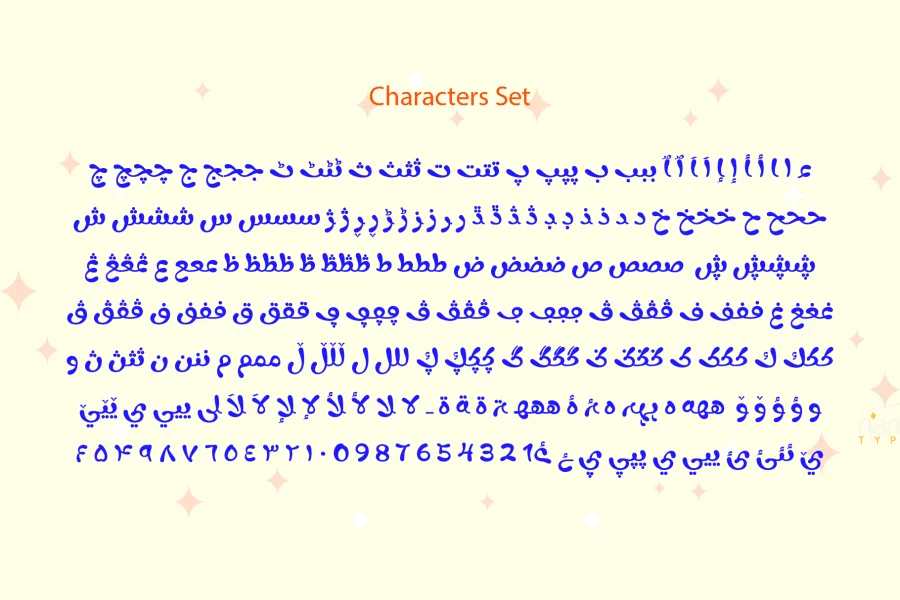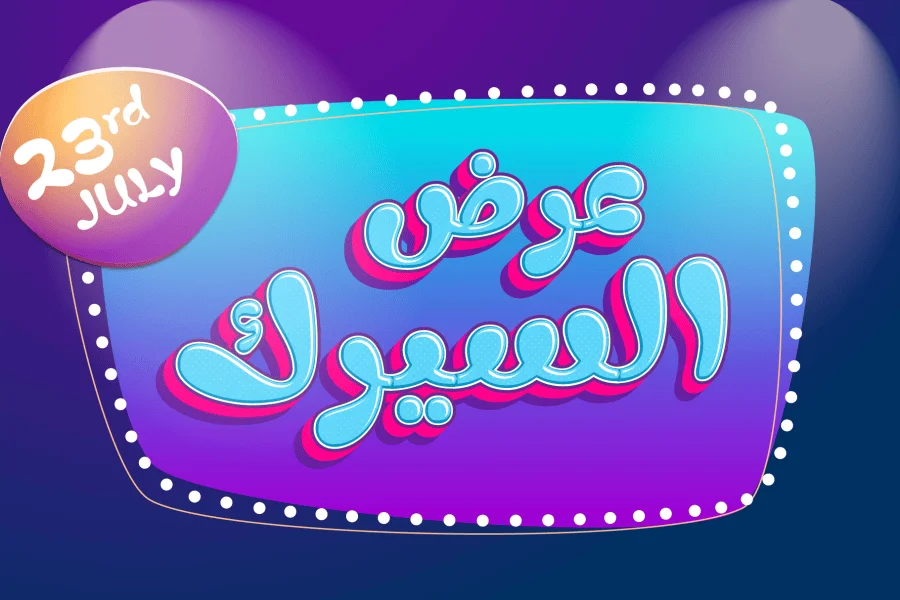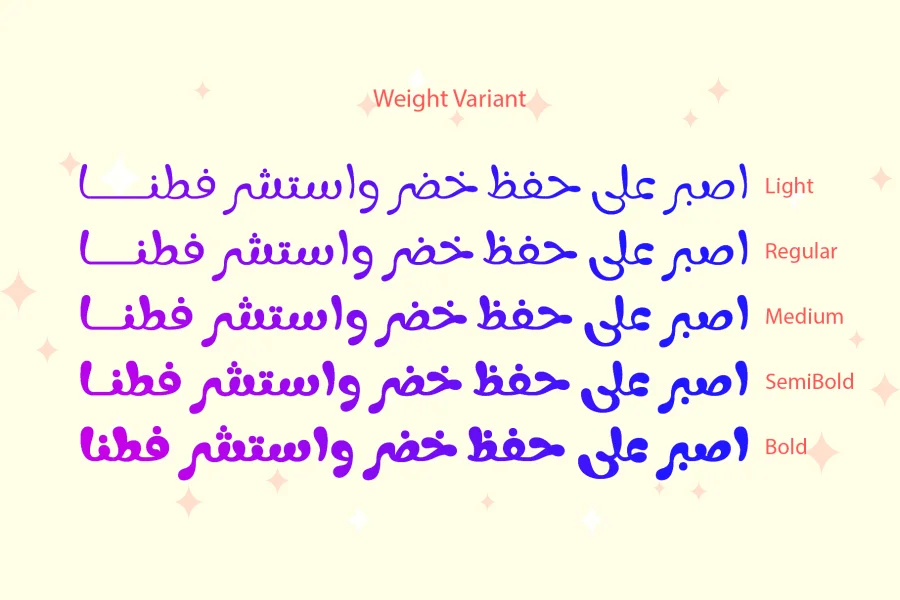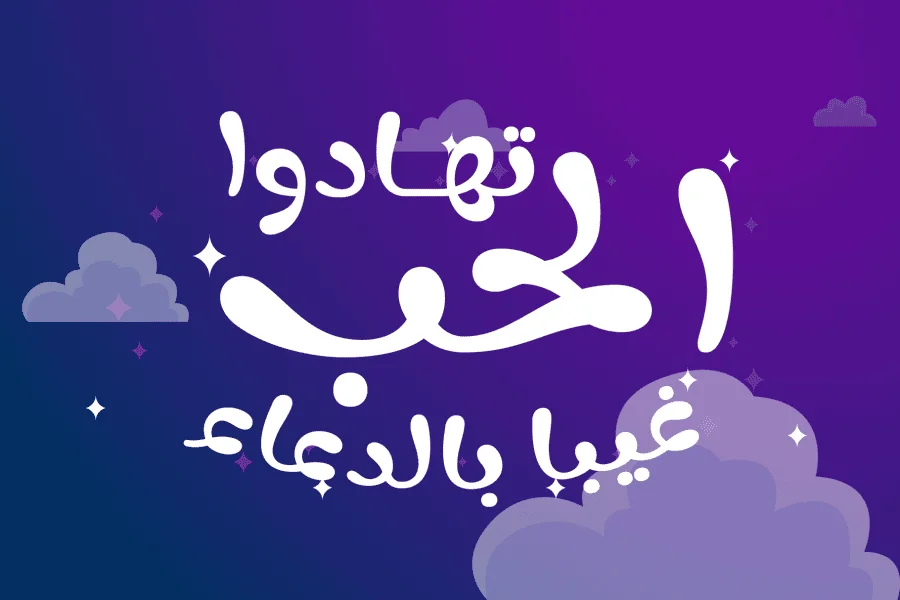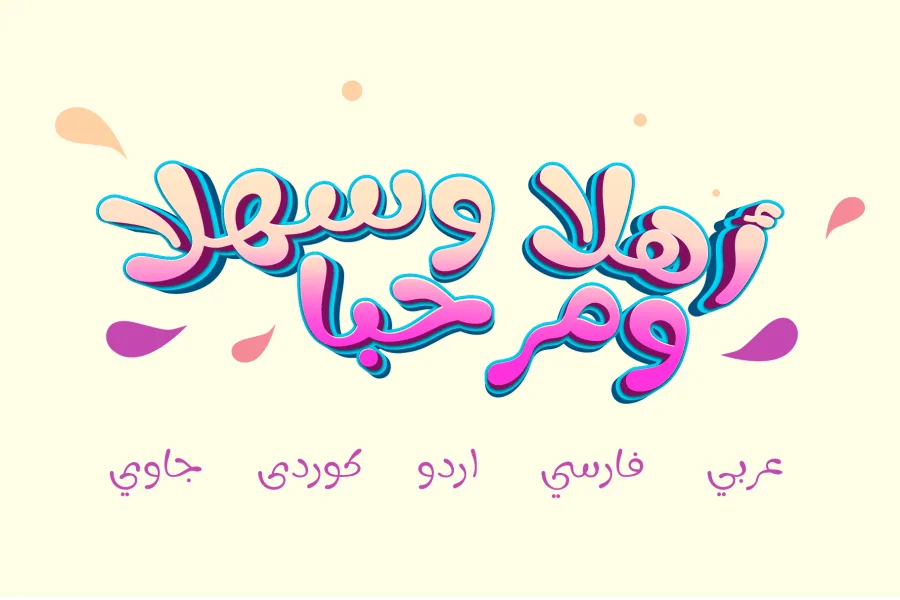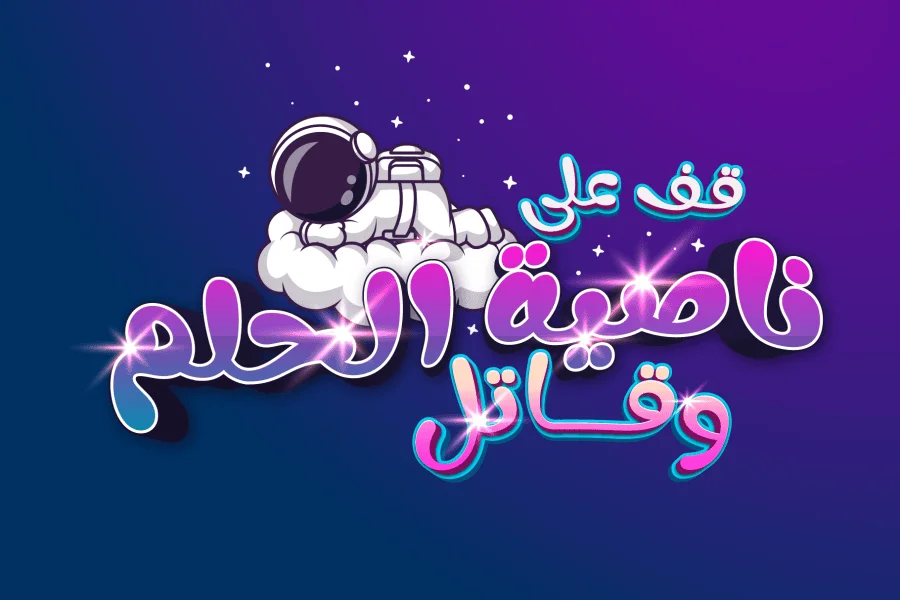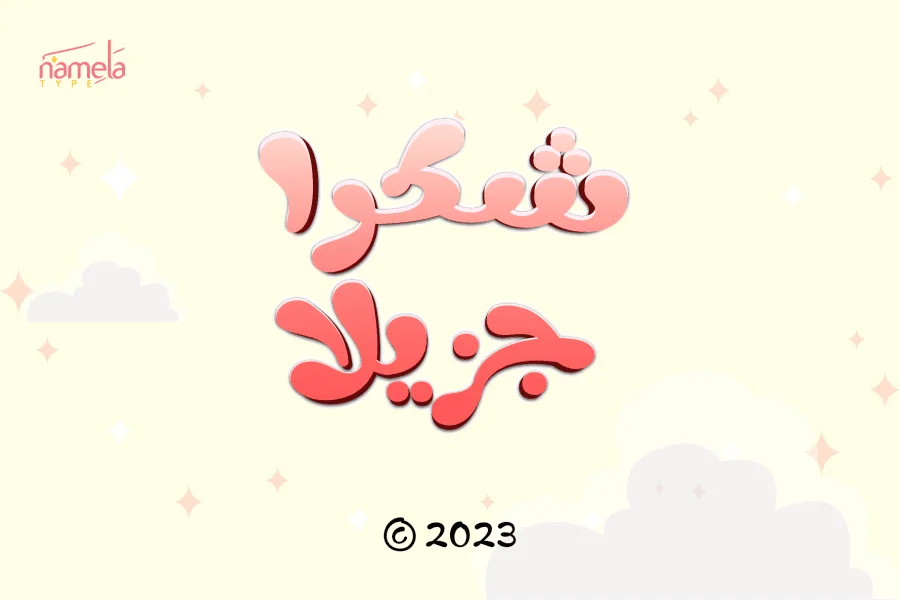
Fun Play Arabic font is a charming family of display typefaces, each character radiating happiness and good humor. This adaptable typeface comes in five weights, from Light to Bold. Providing a plethora of choices to accommodate different design requirements. When creating designs for branding, packaging, headlines, or any other children-related project. Fun Play brings a colorful element that perfectly encapsulates the joys of childhood.
This font family has several characteristics, such as stylistic alternatives, ligatures, and multilingual support, to improve your creative work. With the help of these elements, you can personalize and give your designs more personality. Making them stand out and draw in viewers.
Fun Play Arabic font meticulously designs each character to represent the carefree spirit of childhood, making it the ideal option for projects intended for young audiences or those aiming to convey whimsy and fun. Fun Play adds a sense of fun and excitement to your creations, whether you’re designing for a children’s book, toy firm, or any other playful effort.
Use Fun Play font as your go-to typeface to bring the contagious joy of childhood into your projects. Fun Play is guaranteed to please both young and old with its endearing appearance and adaptable features, making everyone who sees your designs grin.